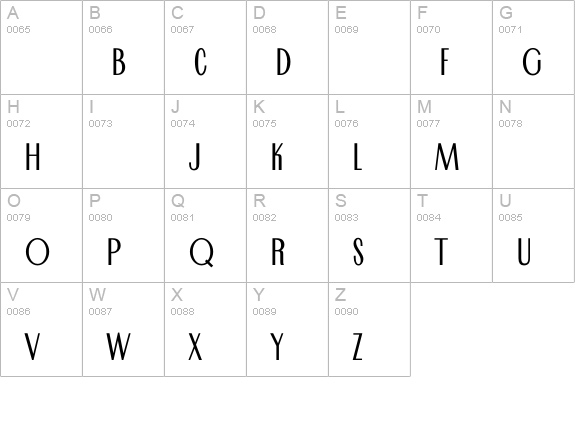
CameoHeavyline Font Details
CameoHeavyline font is a bold and stylish typeface that exudes confidence and sophistication. Its strong, heavy lines make a statement, perfect for headlines, titles, and branding materials. The sharp edges and clean design give this font a modern and sleek look that is sure to catch the eye. What's even better is that CameoHeavyline font is available for free download at FontsMarket.com. This means you can easily access this stunning font and use it in your projects without any cost. Whether you're designing a poster, logo, website, or any other creative project, CameoHeavyline font is a versatile choice that will elevate your design to the next level. Don't miss out on this fantastic opportunity to enhance your work with this premium font, now available for free at FontsMarket.com.